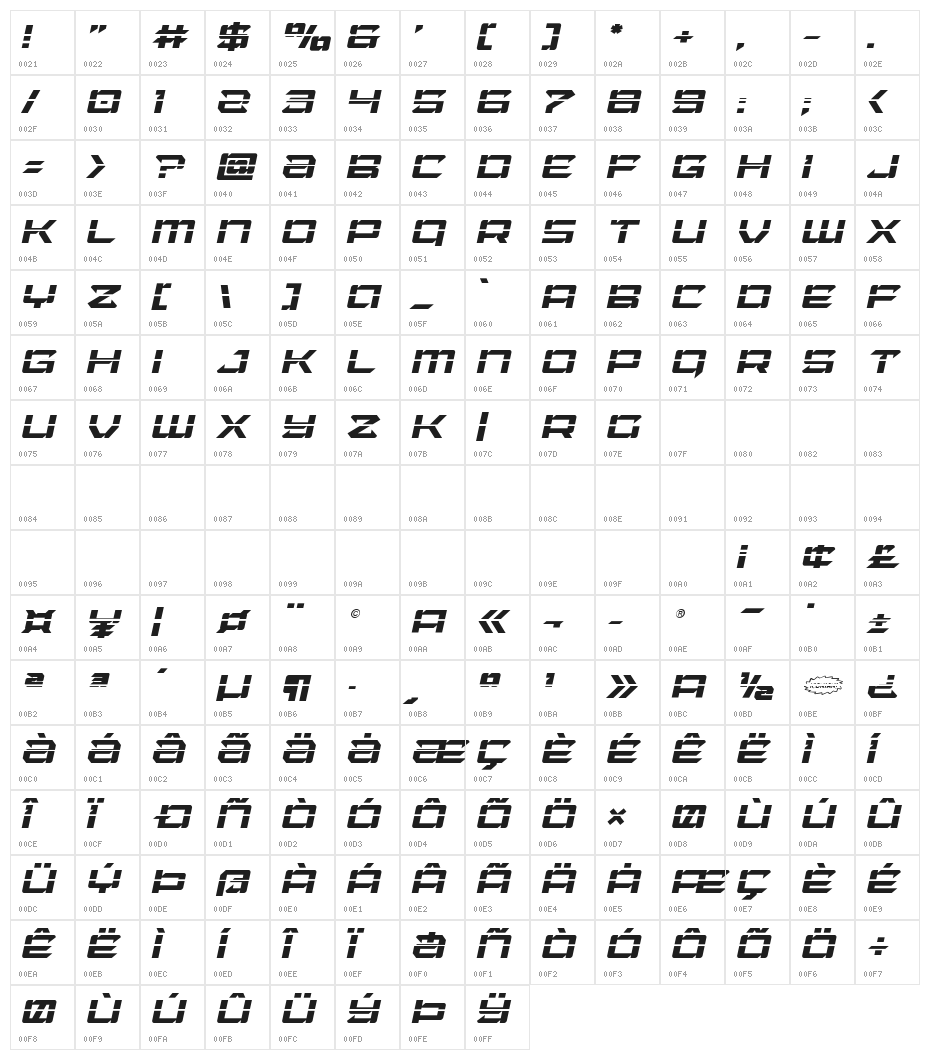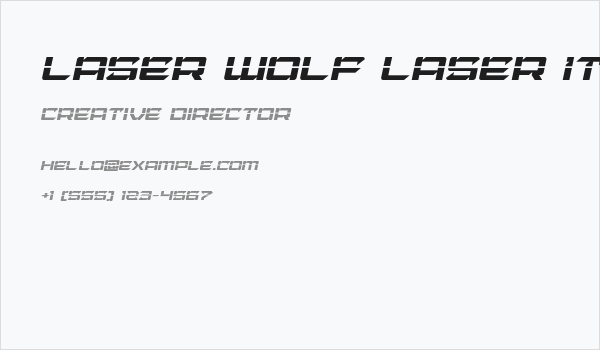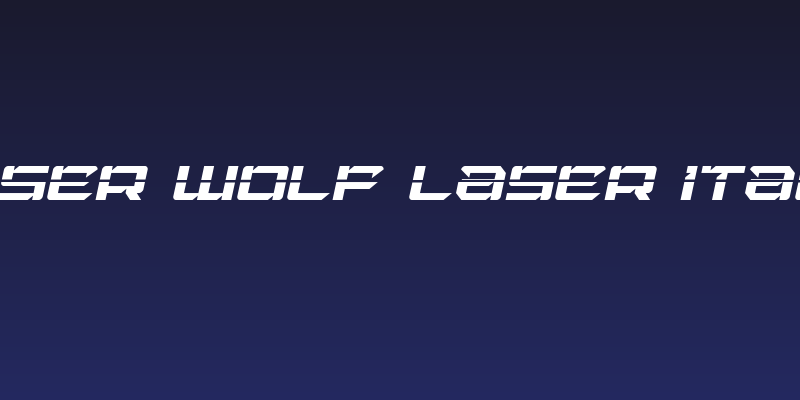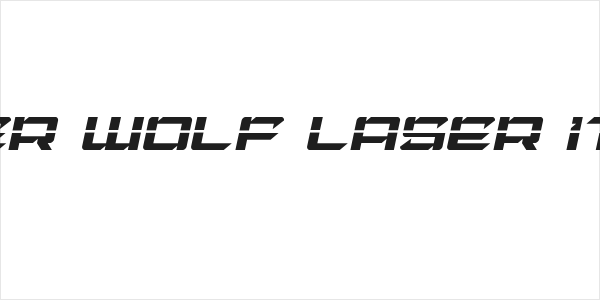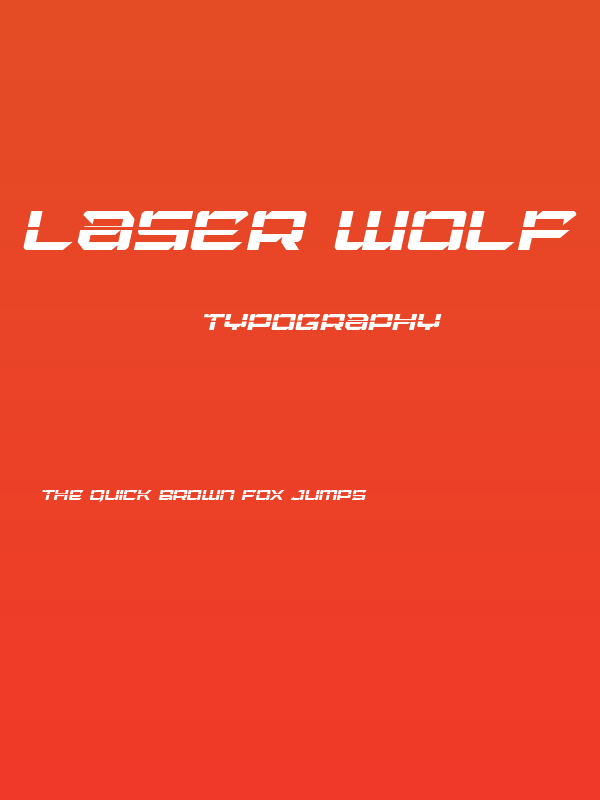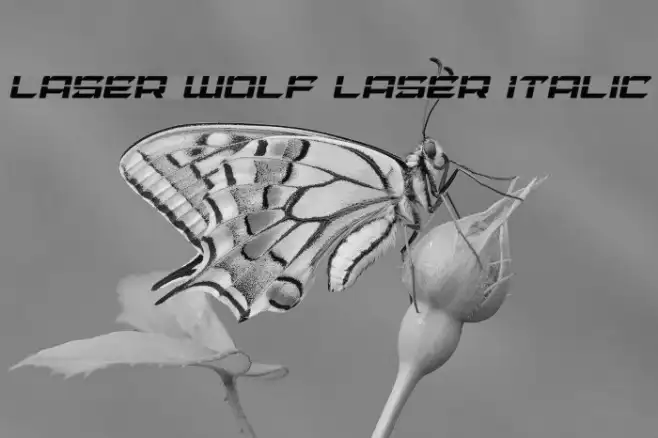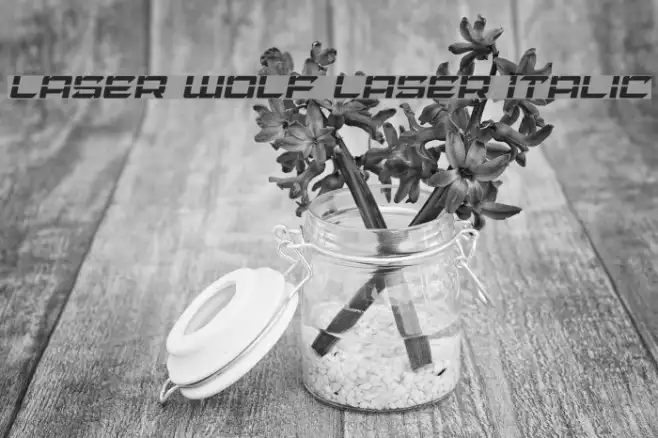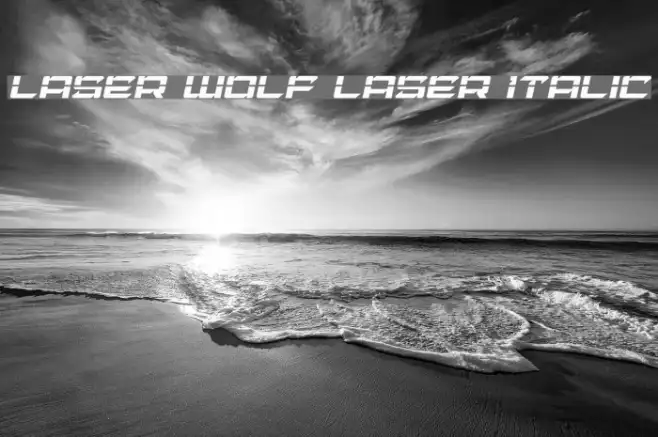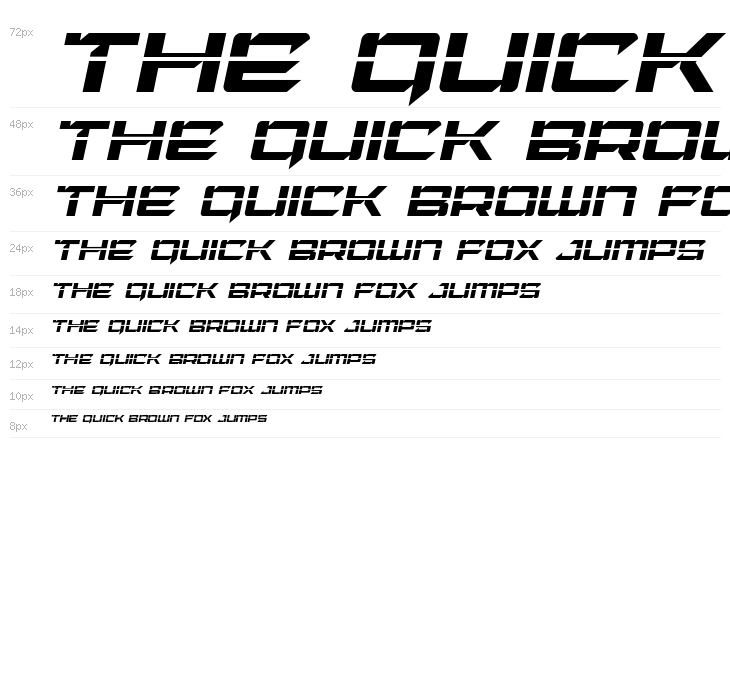
Laser Wolf Laser Italic Font
Laser Wolf Laser Italic Description
This font features a futuristic and angular design, characterized by sharp edges and a slanted, italicized style. The uppercase and lowercase letters maintain a consistent geometric structure, giving it a sleek and modern appearance. The numbers and special characters follow the same angular theme, enhancing the overall cohesive look. The font's unique style makes it stand out, with a bold presence that is both eye-catching and dynamic. Its design is reminiscent of digital or sci-fi aesthetics, making it suitable for projects that require a modern and edgy feel.
| Proposed Projects | Ideal for sci-fi themed projects, video game titles, tech branding, and futuristic posters. |